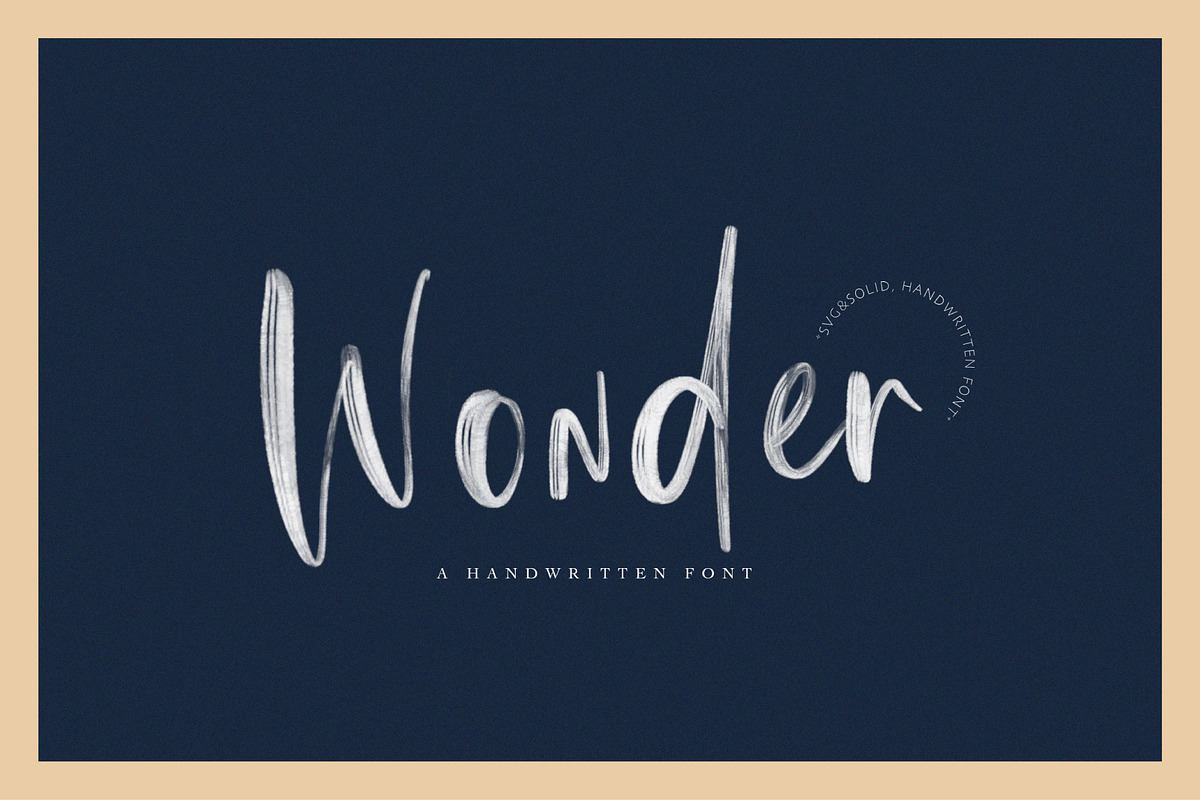
Wonder | SVG Font Free Download
Wonder | SVG Font Free Download is a vibrant and playful typeface that uses SVG technology to incorporate textures and illustrations directly into the font. Perfect for creative and whimsical designs, this font is ideal for projects like event posters, social media graphics, children's branding, and anything that requires a fun, colorful, and artistic feel.
Wonder | SVG Font Free Download offers a unique and dynamic way to incorporate colorful textures and details into your typography. Whether you're working on a colorful branding project, crafting invitations, or adding a touch of whimsy to your designs, this font brings a playful, artistic energy to your work. Download it today and let Wonder add creativity and fun to your next design!